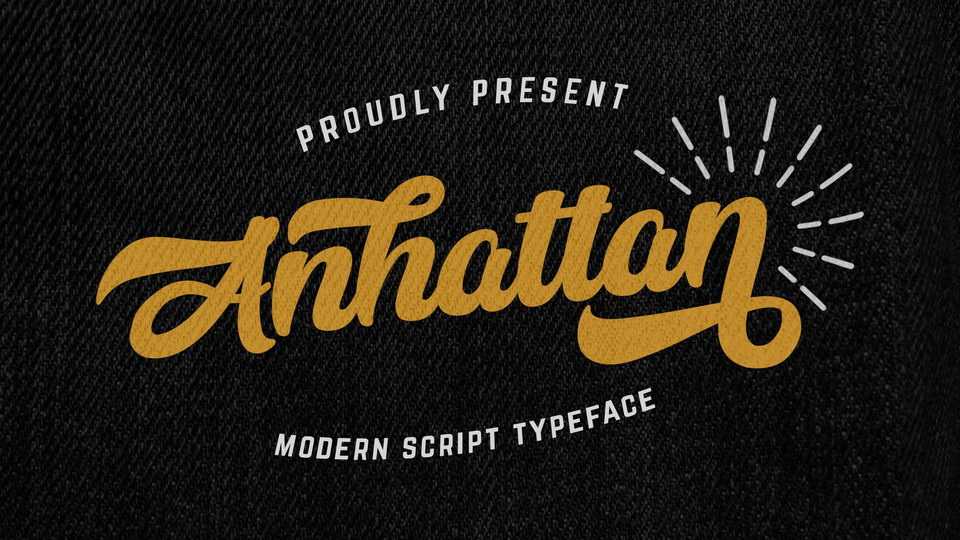
Download Anhattan font, a retro bold script with unique design taste and a classic retro style of the 80s, trendy, vintage, and sporty. Anhattan is perfect for vintage lovers, besides this font is also perfect if used for brands such as: barbershop, motorcycle club, clothing and more.